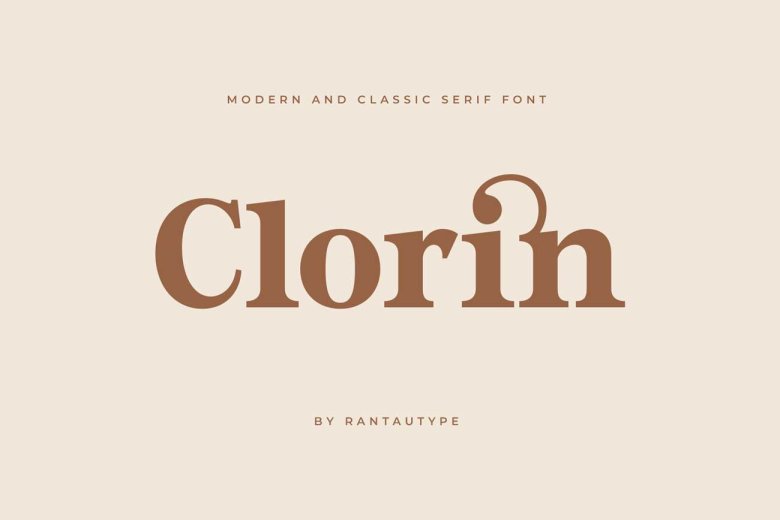
Clorin Font
Clorin is a modern serif font in which major and minor case versions can draw the curtain in your own home. The capital letters are optional, classic or casual, according to your work demands. I also like to match reguler (regular italic) and set them mixed use up cool and memories.
Clorin is another ideal choice to apply to wedding organizer’s watermark, signature logo or signature, quotes, album cover, business card and a myriad of other design projects; this font will bring you to a high level
Clorin Serif Font